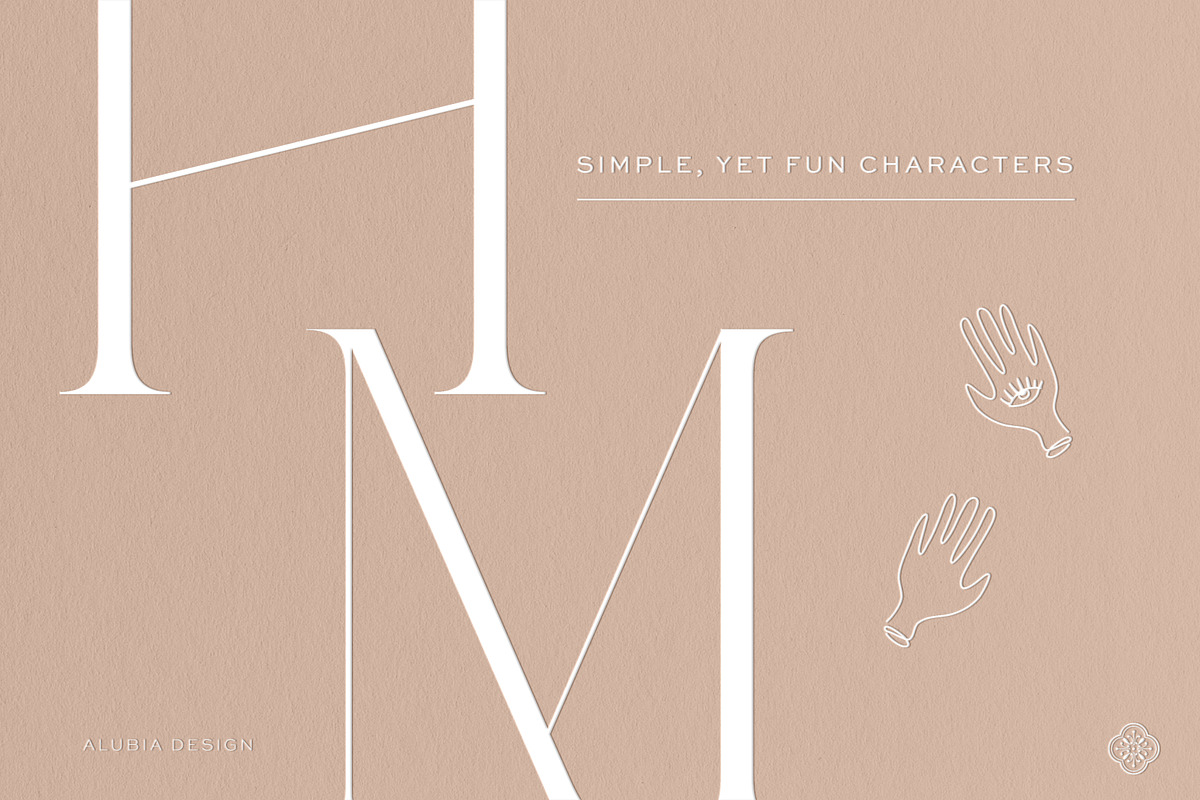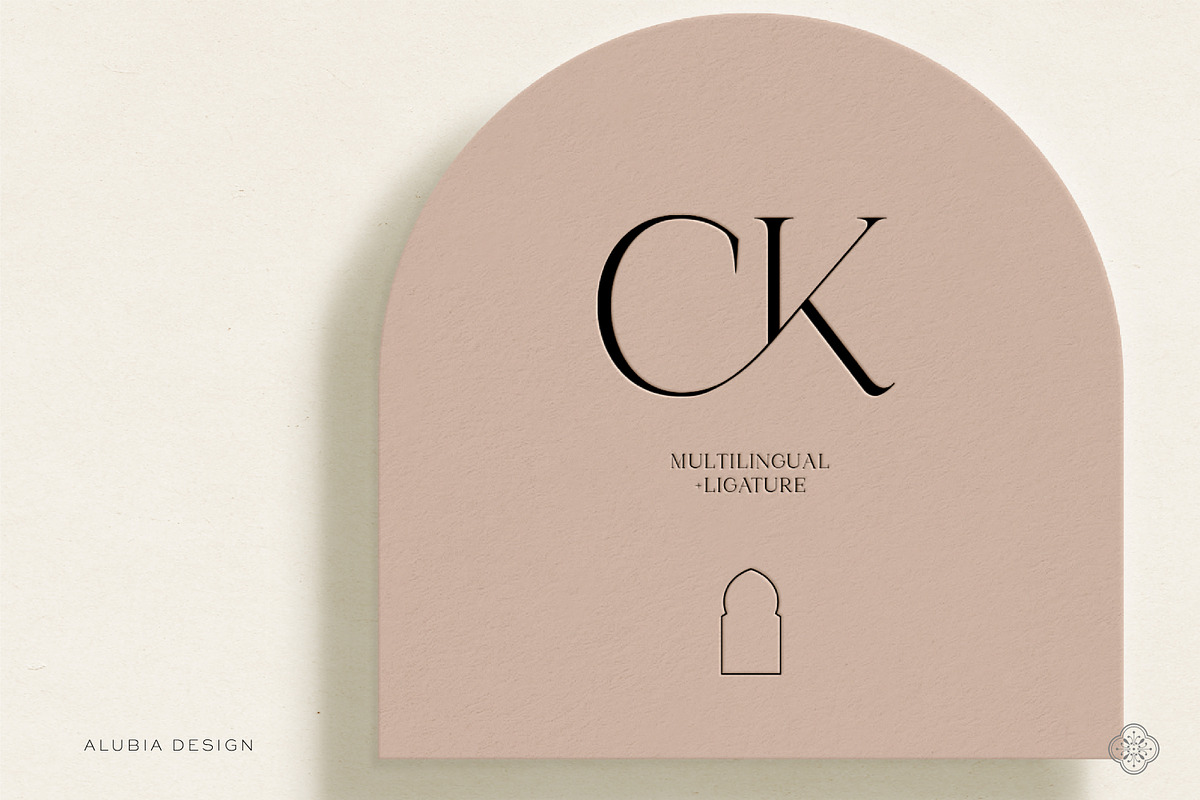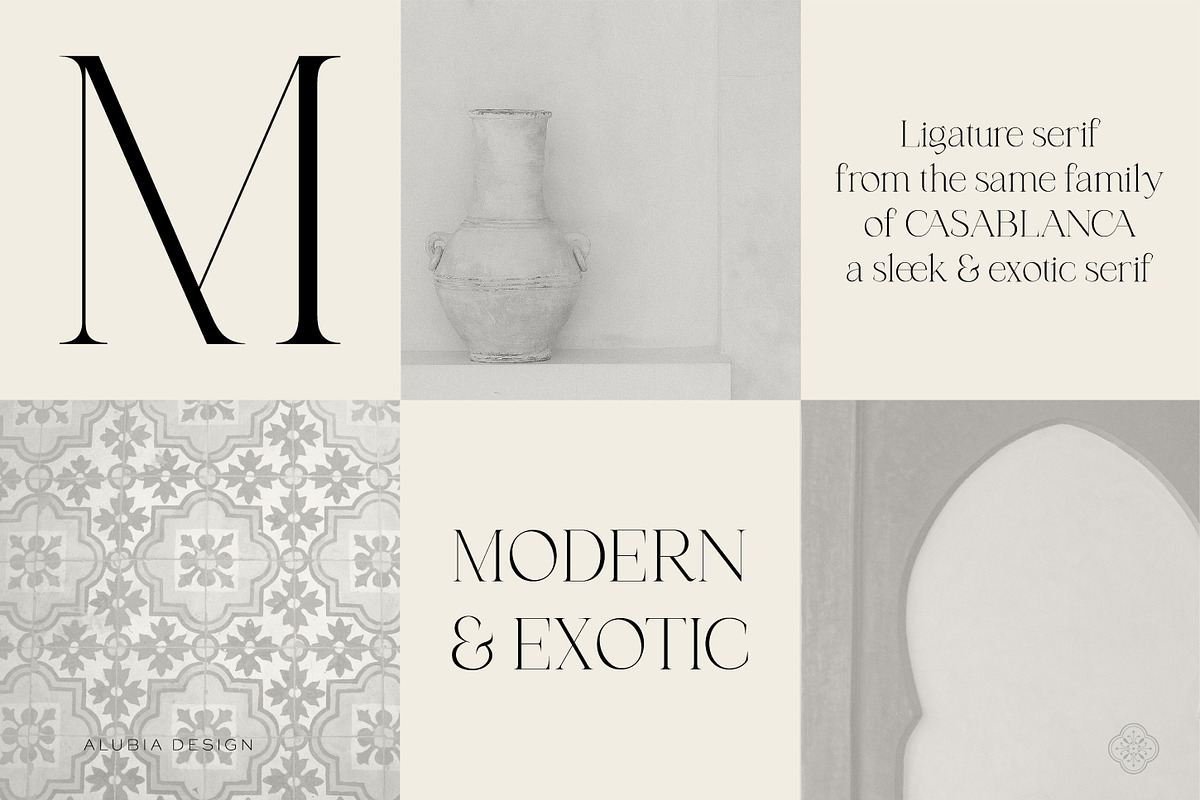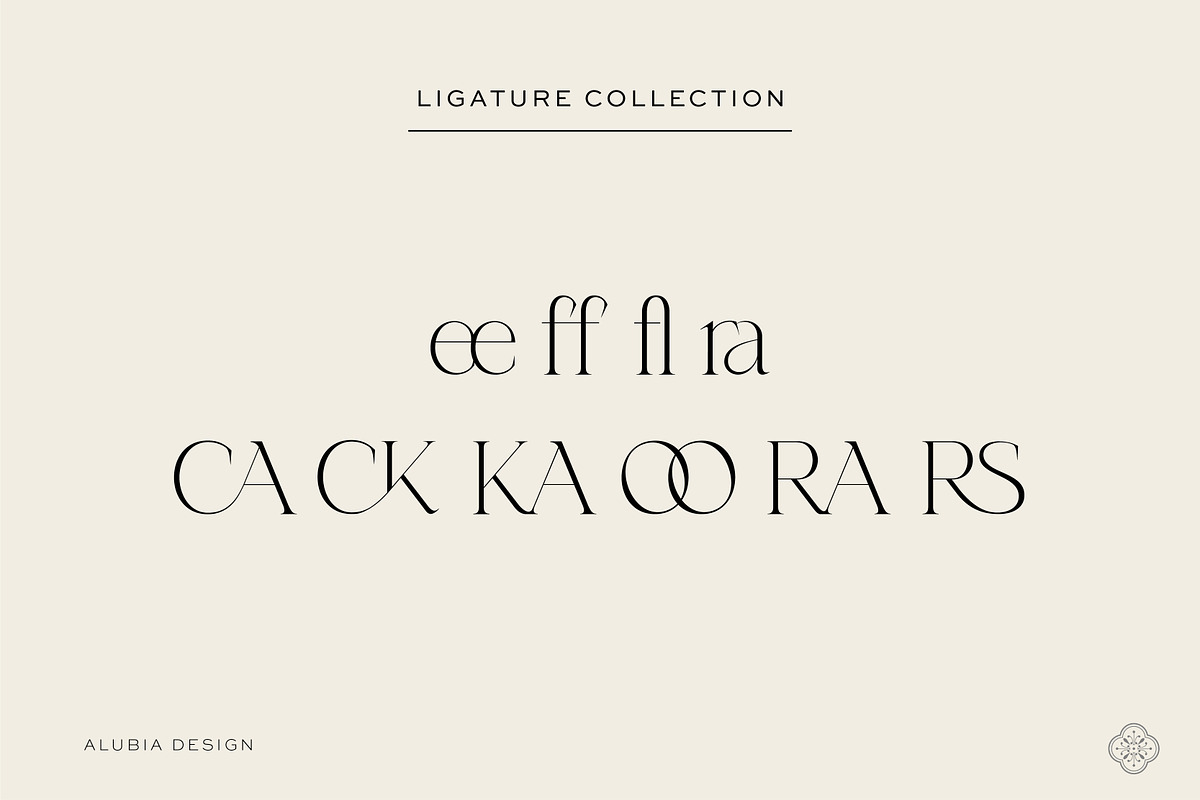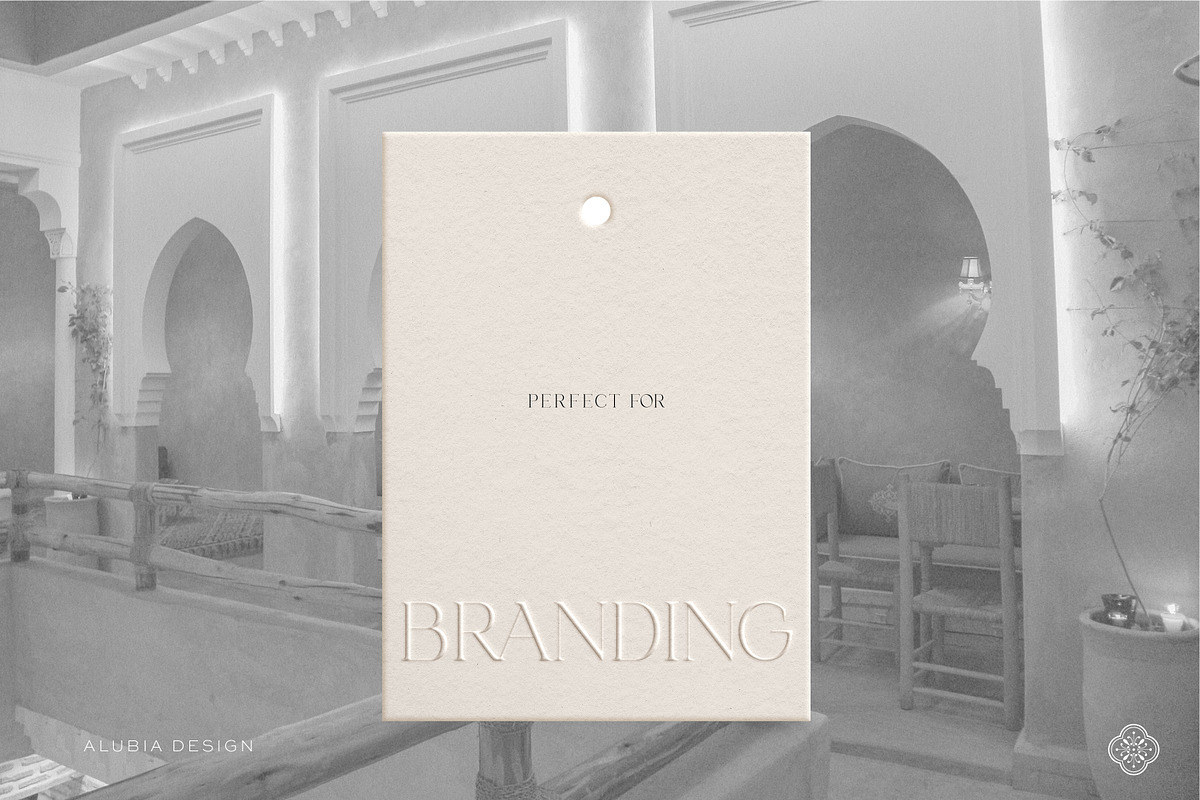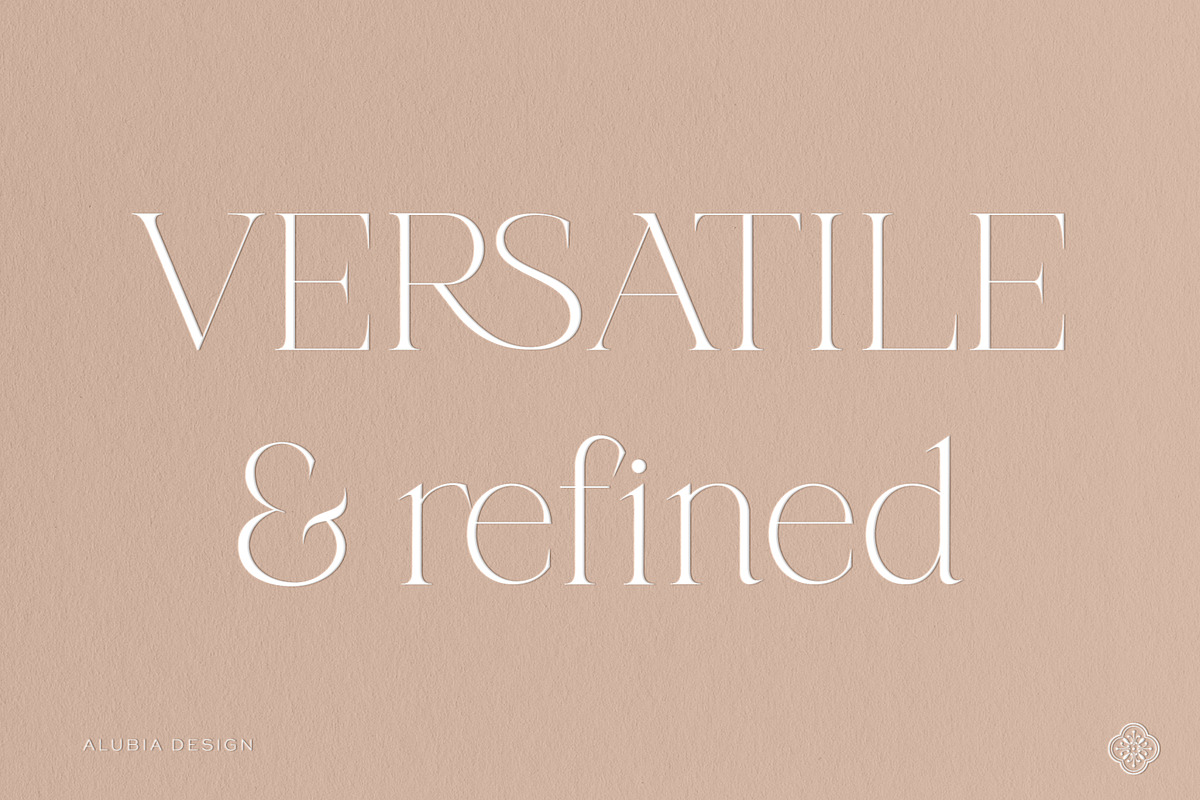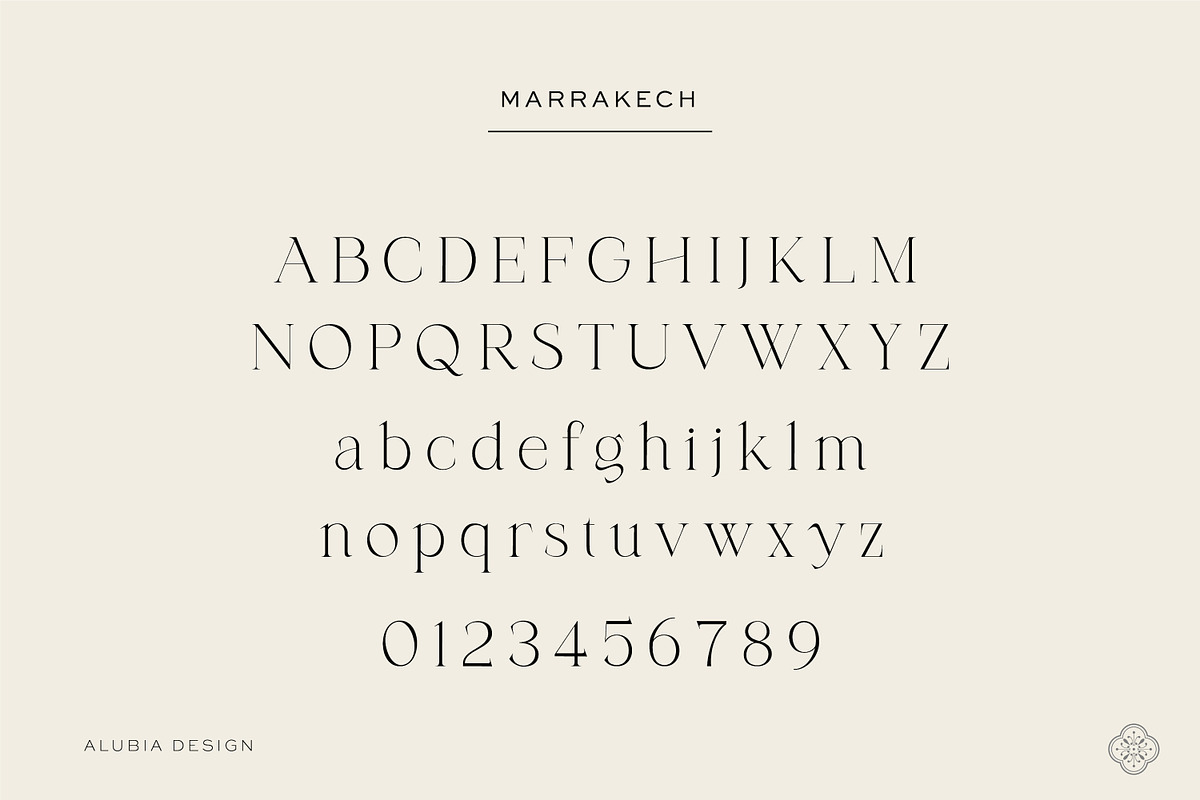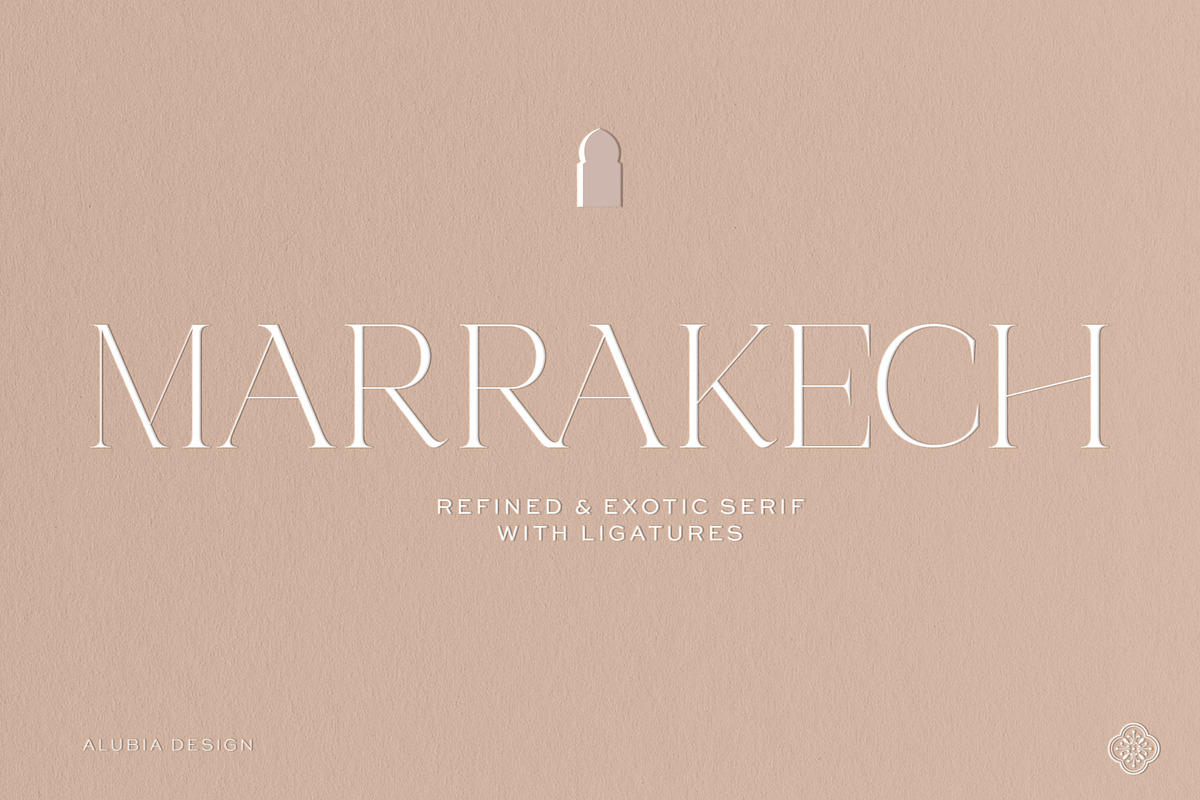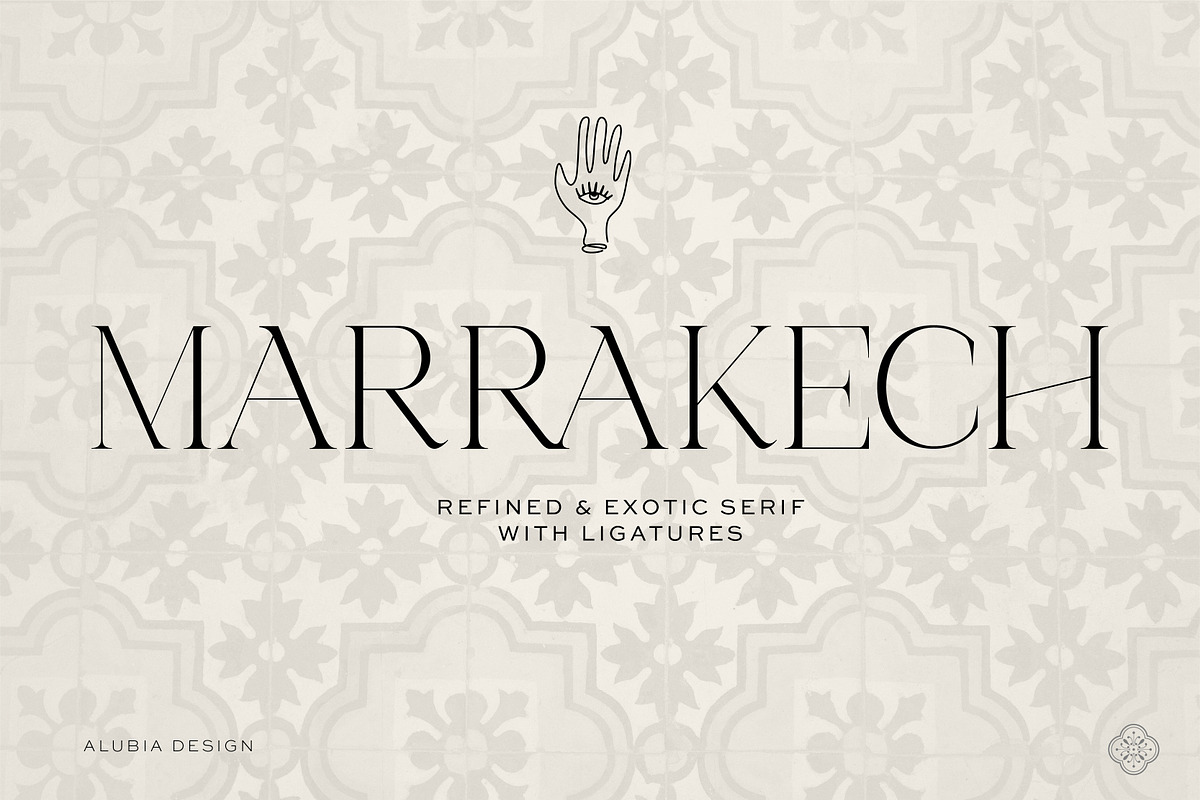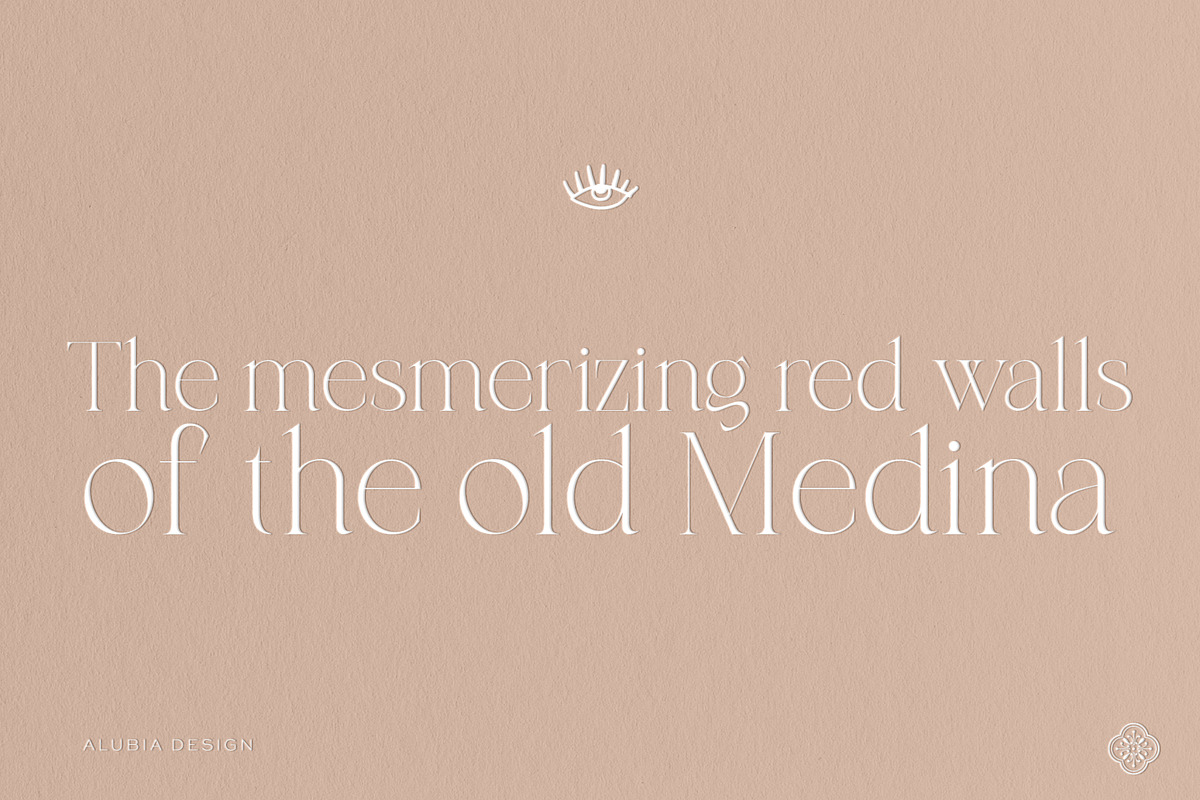
Marrakech - Modern & Exotic serif
Introducing 'MARRAKECH' - Modern, exotic and refined serif from the same family of - CASABLANCA with ligature. This font is perfect for branding, logo design, and more. Enjoy :)
Uppercase & ligature Lowercase letters & ligature Multilingual characters Numbers Punctuation